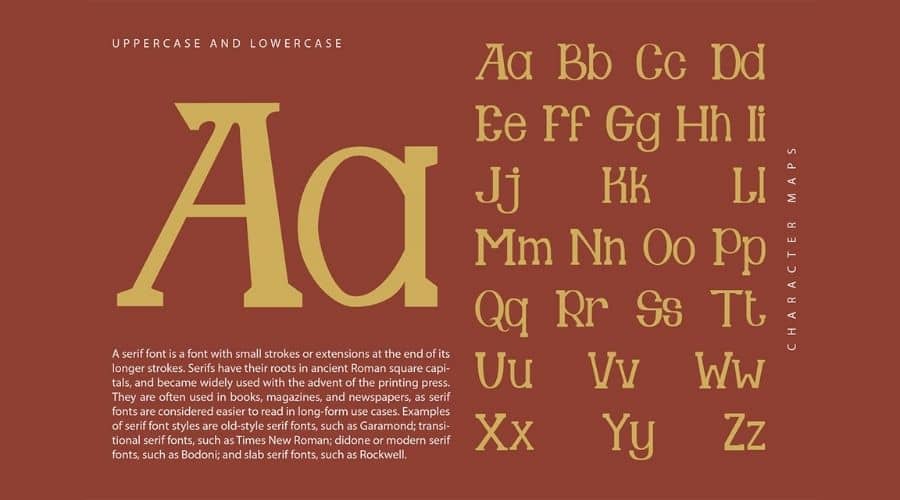
Guard Serif Font
Guard Font is a retro and serif style typeface that was inspired by traditional western culture, custom culture motorcycles, and vintage touches. Guard Serif Font is an incredibly modern and completely new serif font. The spiky serifs, which provide a fantastic touch to the entire typeface, inspired the design. Excellent headline choices and slightly flattened fonts exhibit good legibility. Fontkong created the font and made it available for download. On May 28, 2020, the font was released.
The Guard Serif Font is just for personal use! Starting with uppercase, lowercase, Numeric, and certain Special character and alternatives, fonts are available. The major purpose of utilizing this typeface was to add a touch of modernism to serif fonts by reworking the curves of traditional serif fonts and introducing an additional alternate stencil-like serif family. Like Jack Daniels font, Guard Typeface has over 450 glyphs, including variants, ligatures, and punctuation marks.
Furthermore, the cursive and serif corners have enhanced their beauty. The objective of the typeface’s design is to make it the best match for any other font currently in use. The Font is compatible with Windows, Apple/Mac, Linux, Cricut, Silhouette, and other cutting machines. Converting the font to a web font is simple. OTF and TTF are the two formats in which the typeface is offered. It’s a high-quality typeface that’s gorgeous, elegant, and attractive.
Guard Serif Font is ideal for quotes, postcards, logos, presentations, nature-themed projects, product packaging, magazines, and much more. It’s also ideal for elegant and botanical-themed designs, as well as a tasteful text overlay on any background image. Guard is also ideal for logotypes, headlines, and other design projects. One technique to produce your best designs for a genuine retro aesthetic appeal is to use the Font.